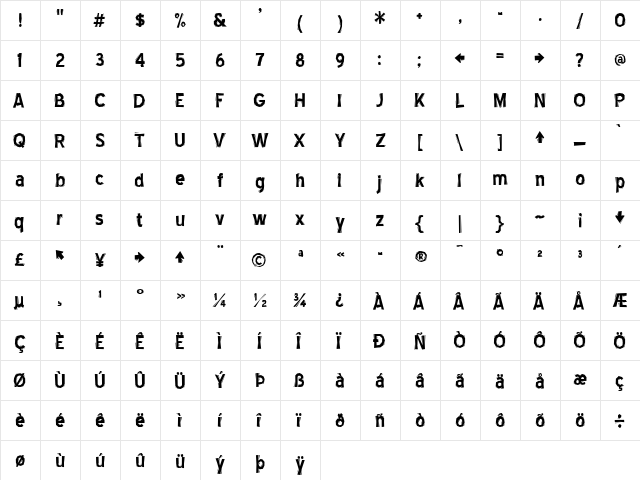
Blue Highway Linocut Regular Font Preview
Blue Highway Linocut Regular
Design Context for Blue Highway Linocut Typeface
Blue Highway Linocut is a composed and adaptable typeface that performs quietly and consistently across a wide range of design contexts.
Pro Tip: Use Blue Highway Linocut in both headline and body roles to test its range before committing to a single application.